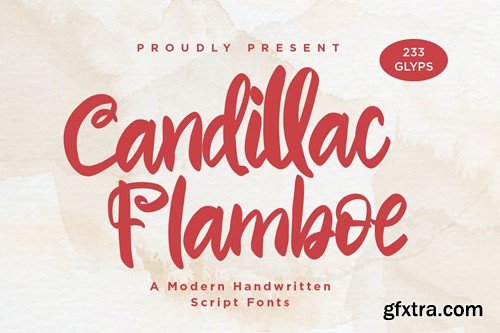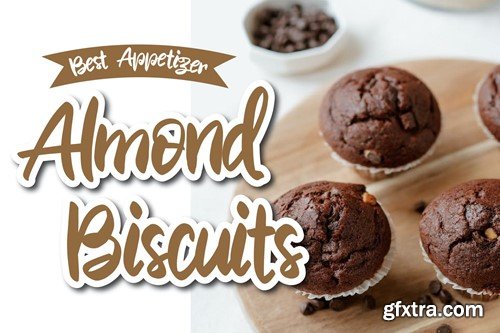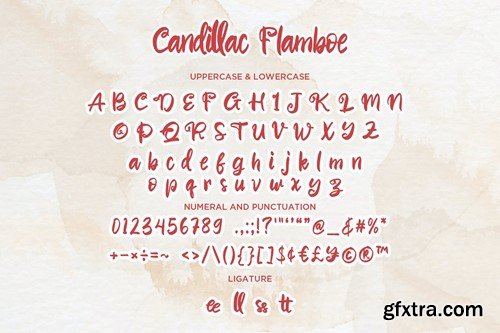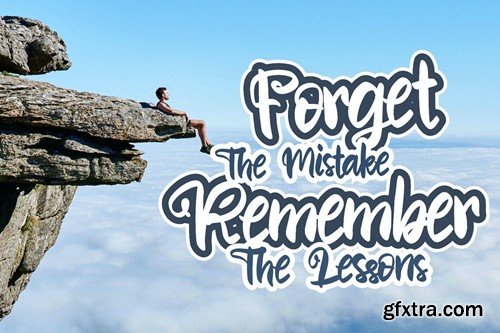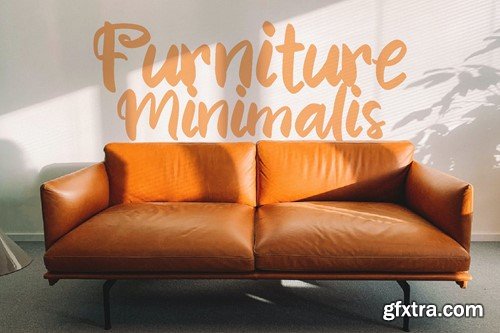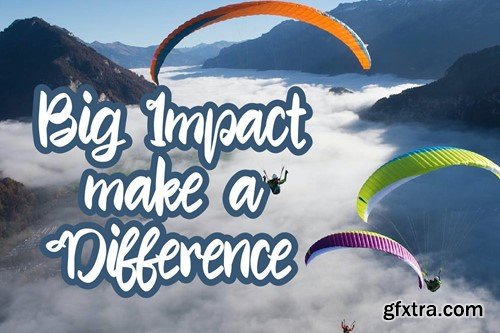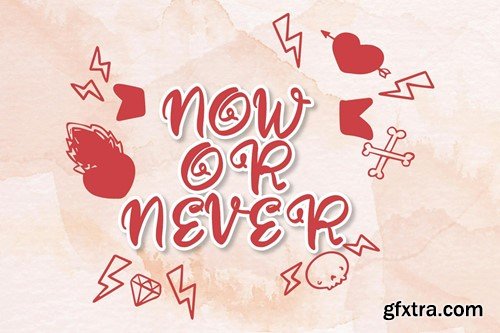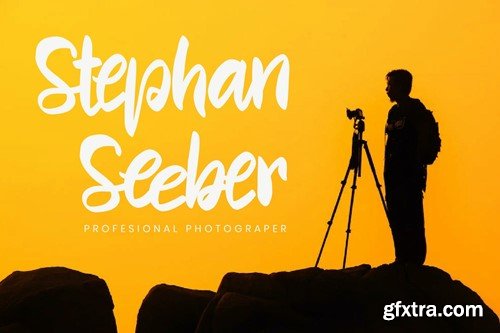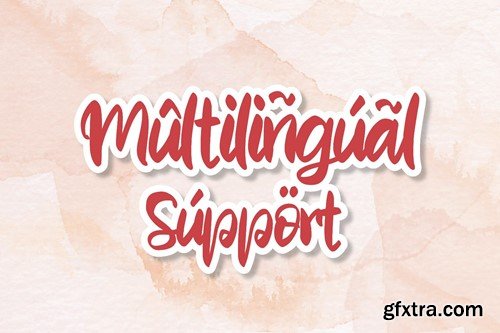
Candillac Flamboe - 手写体脚本字体 FPQBWNB
Candillac Flamboe - Handwritten Script fonts FPQBWNB
Candillac Flamboe - Handwritten Script fonts
Candillac Flamboe is a Handwritten Script font, will be suitable for any projects such as branding, promotional ads, quotes design, merchandise, social media and much more. make your work or your business to high level!!! special events, and all your other lovely projects that need beautiful handwriting taste.
Features :
• Numerals
• Punctuations (OpenType Standard)
• Accents (Multilingual Characters)